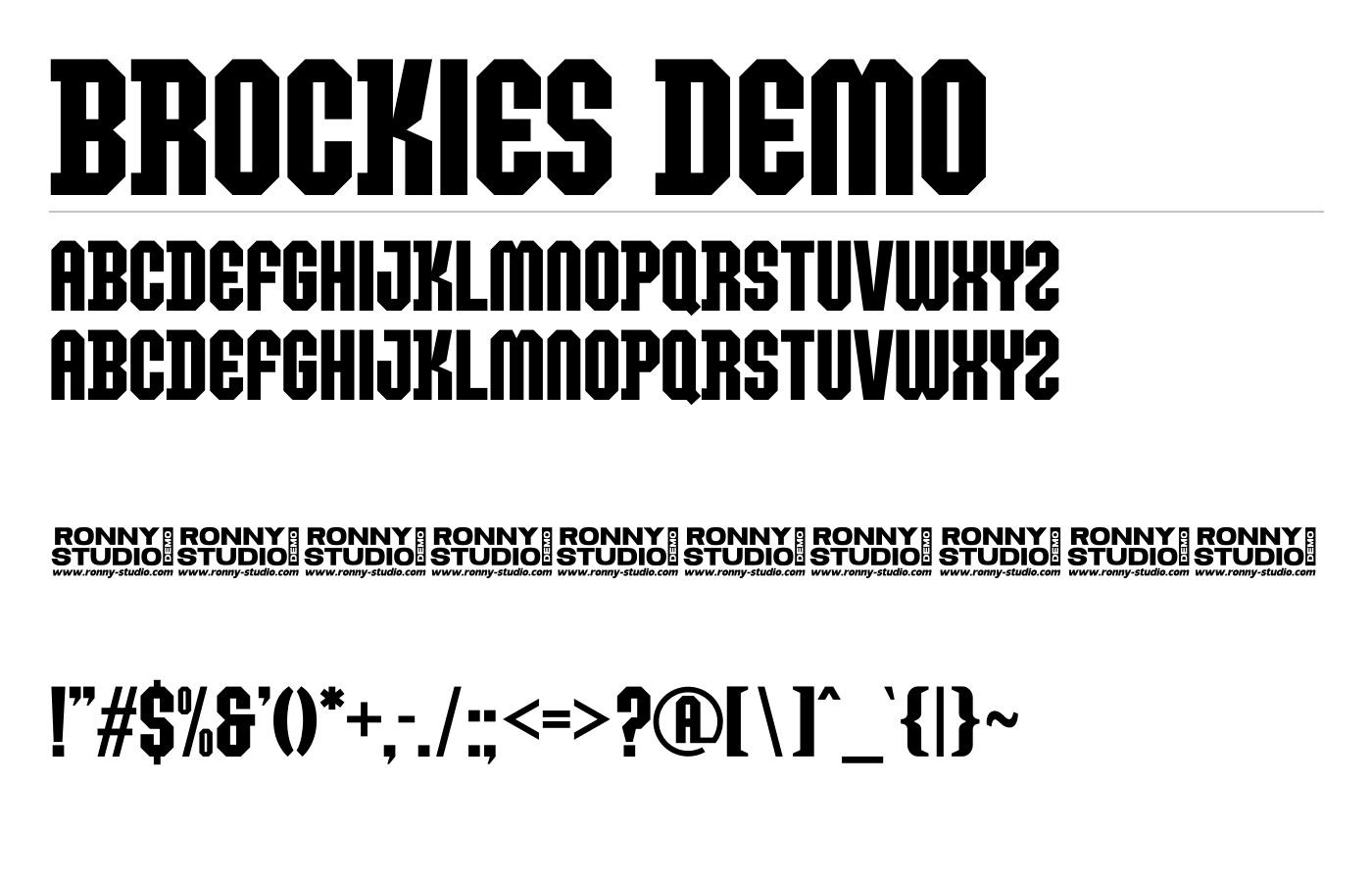
Brockies Demo is a bold, condensed slab serif font with a strong, geometric structure and high stroke contrast that gives it a commanding presence. Its sharp edges and blocky letterforms make it ideal for impactful headlines, logos, and branding that seeks a vintage yet modern industrial feel. This font works especially well in designs that need to convey strength, confidence, and a bold personality.
Brockies Demo Font
About Brockies Demo Font